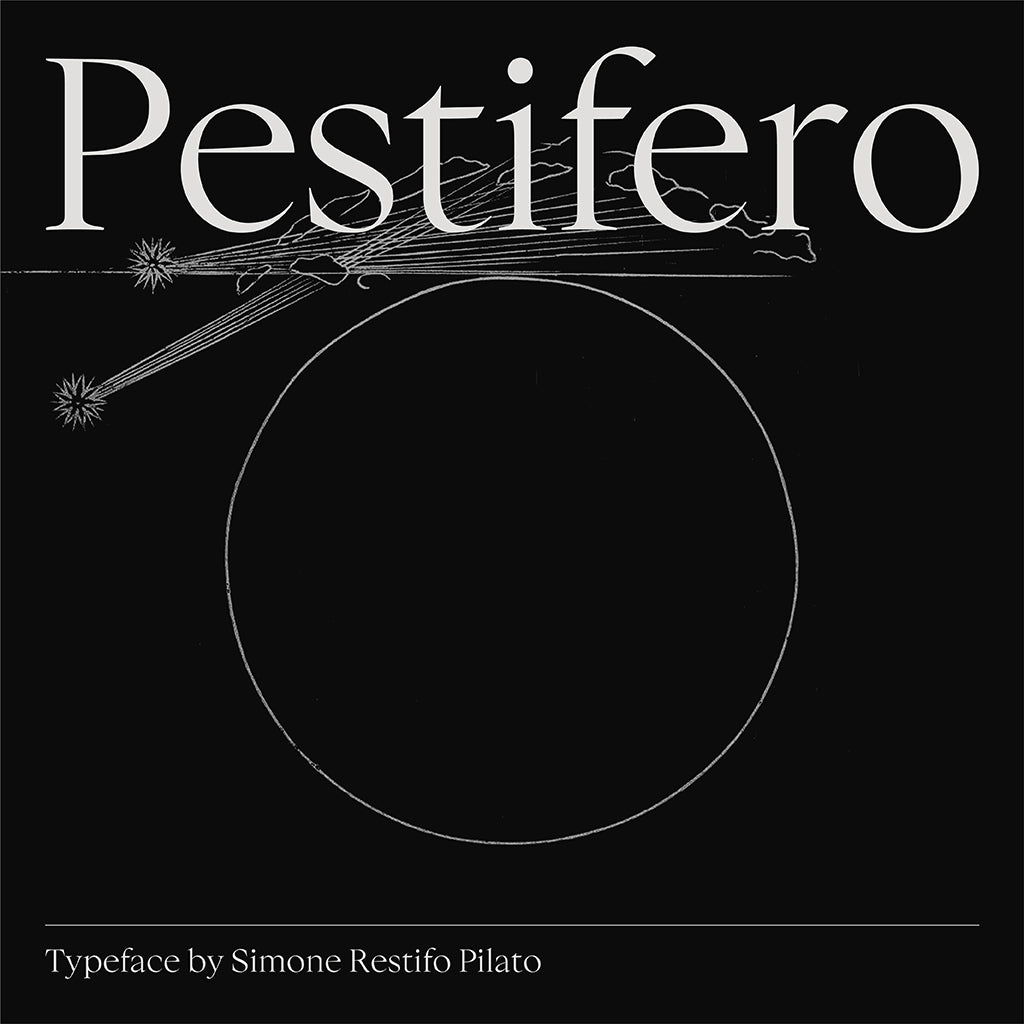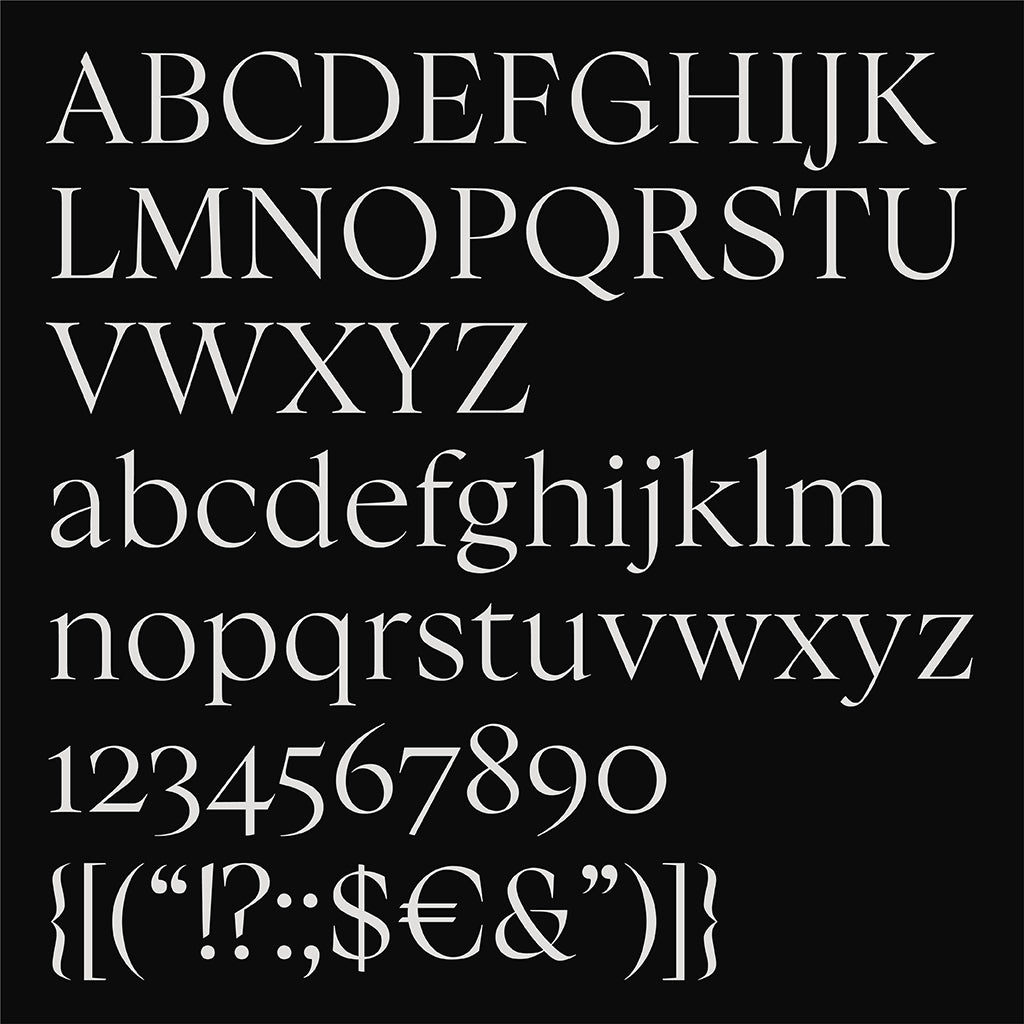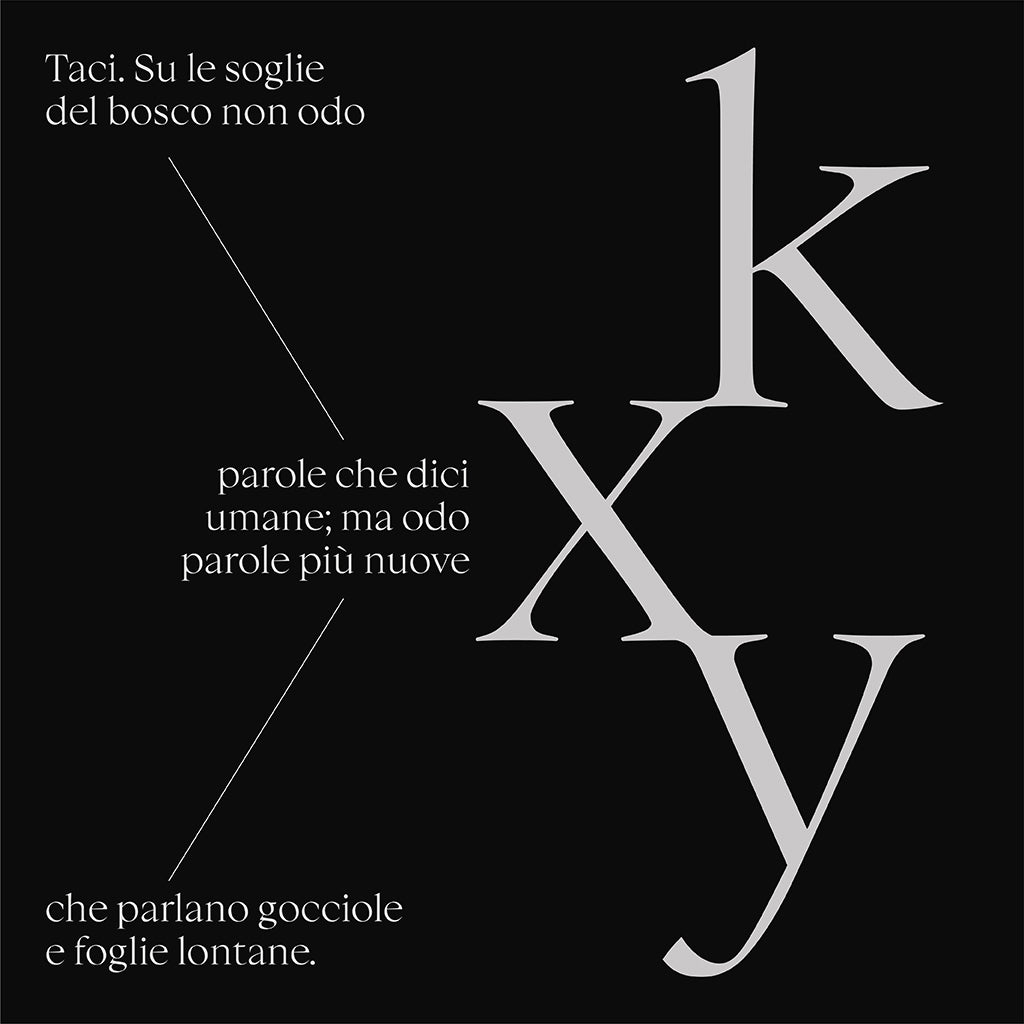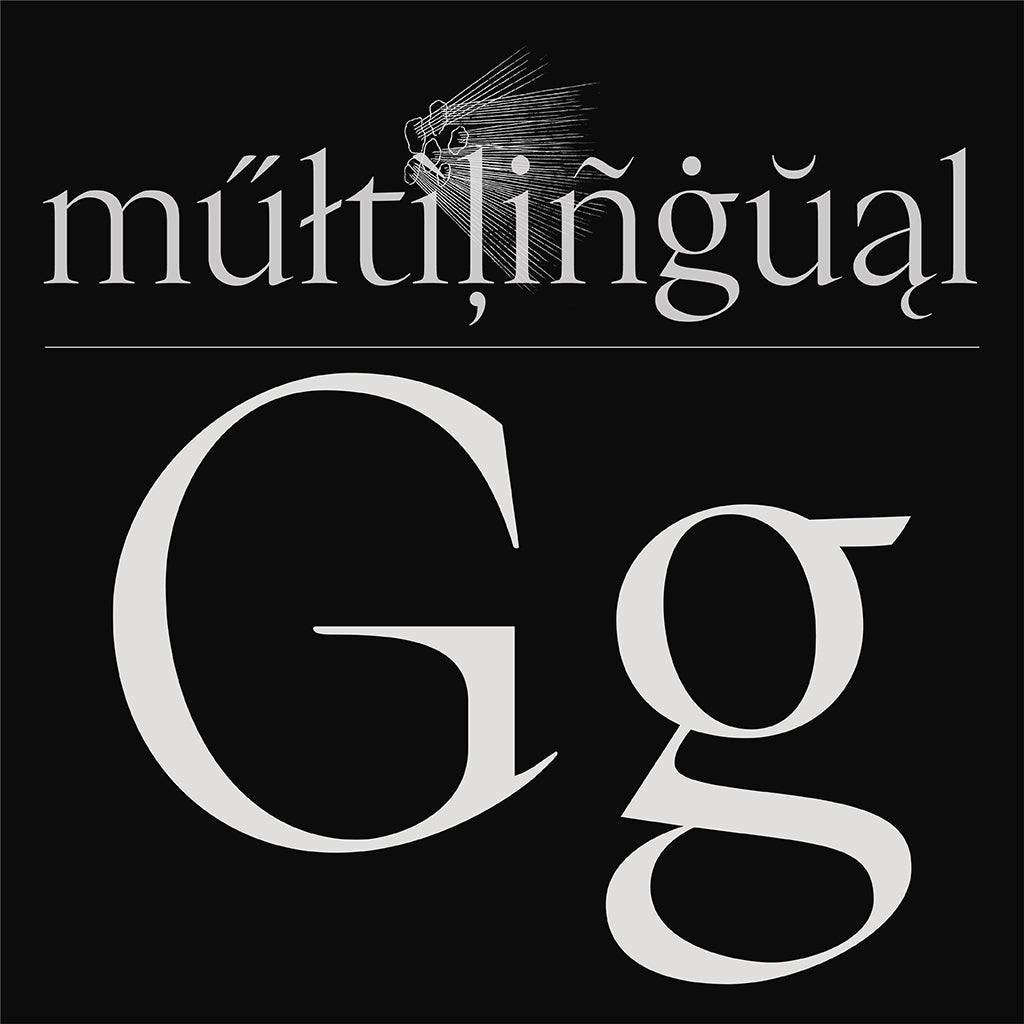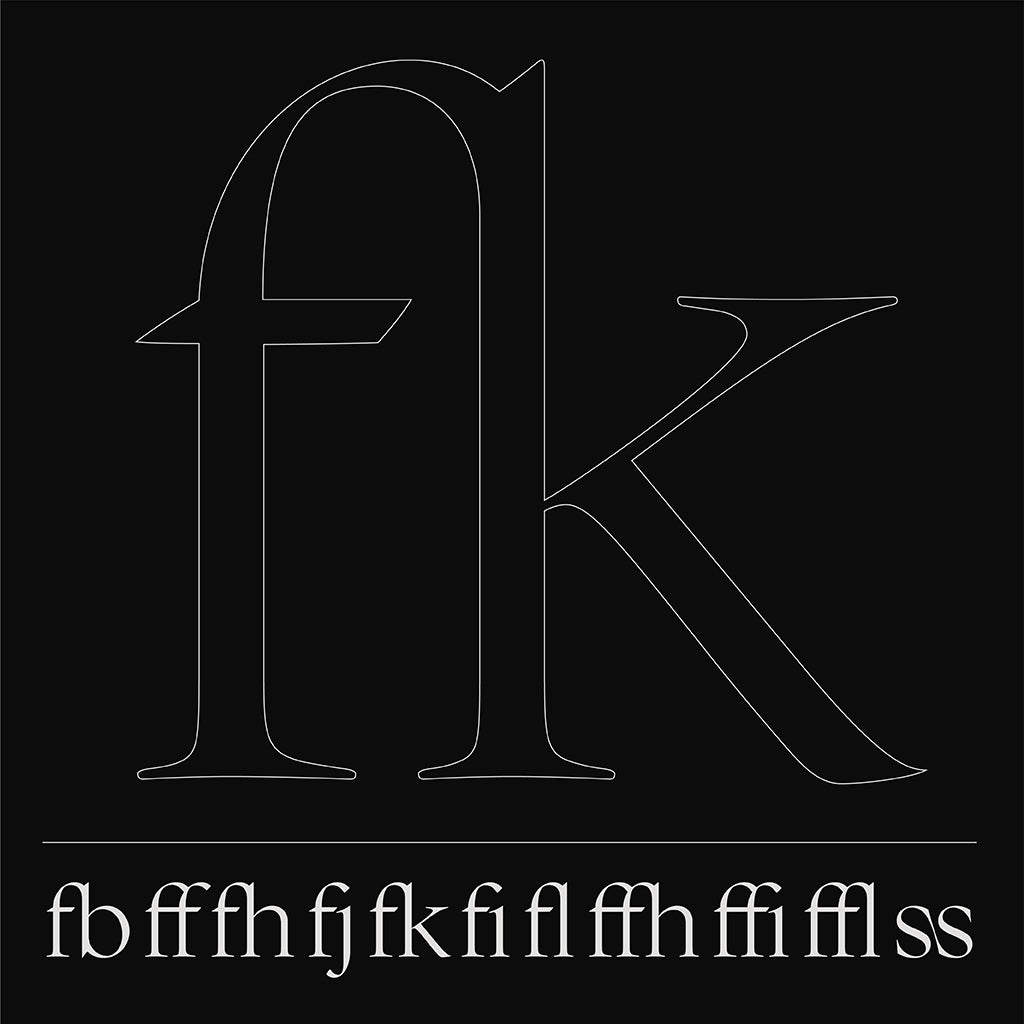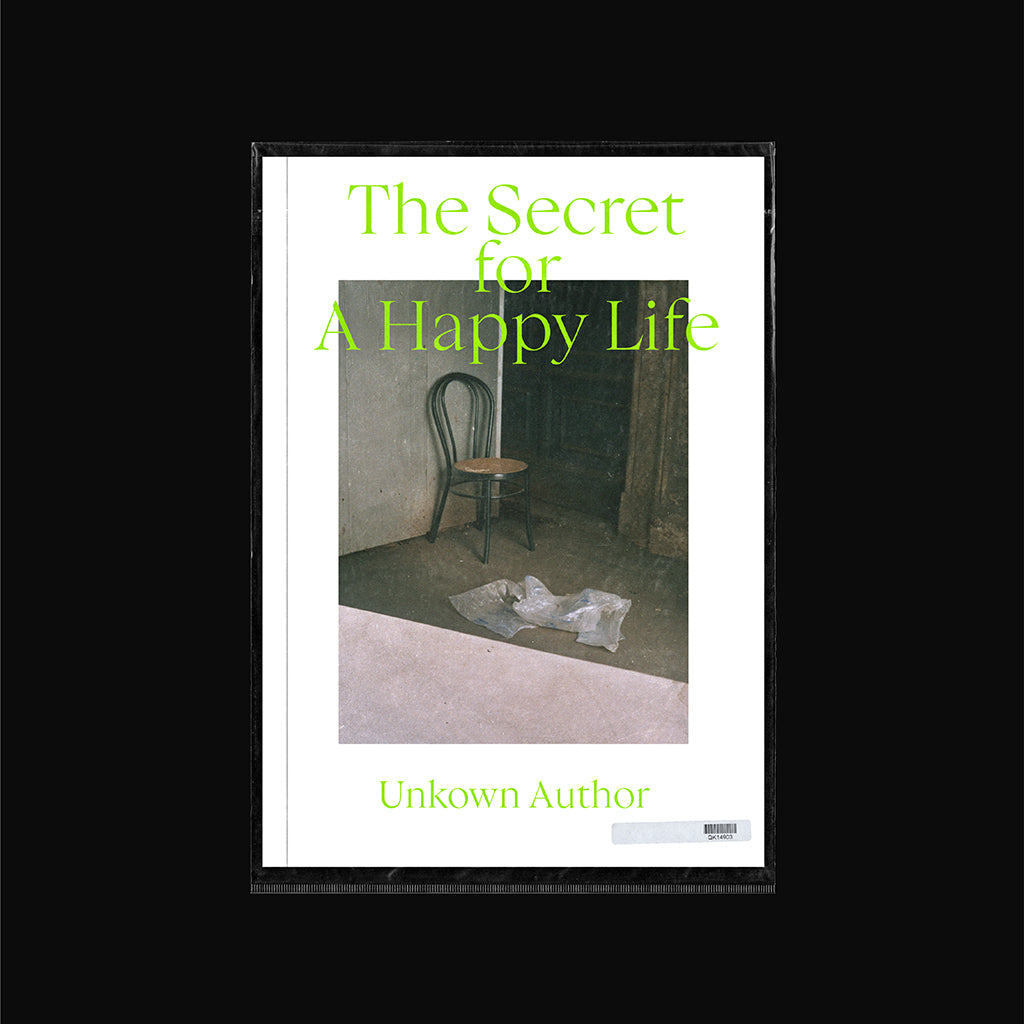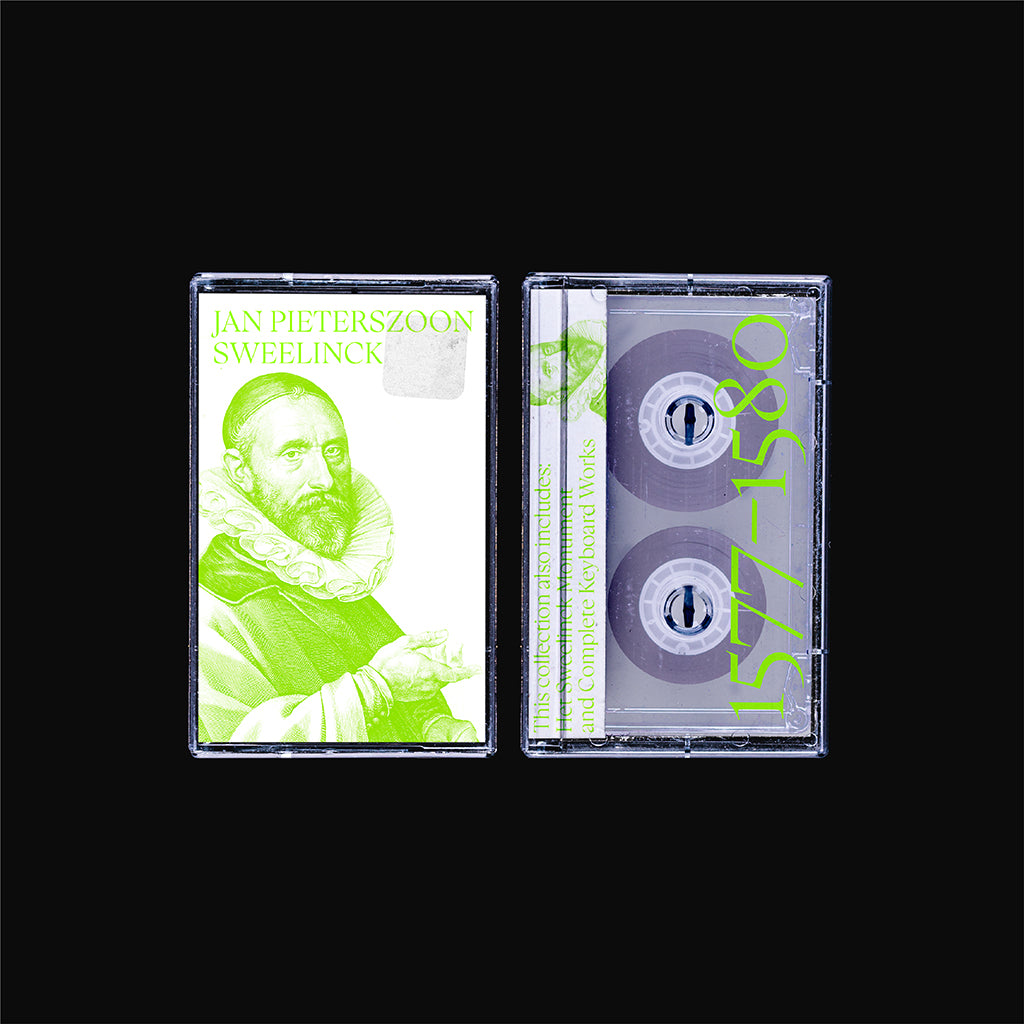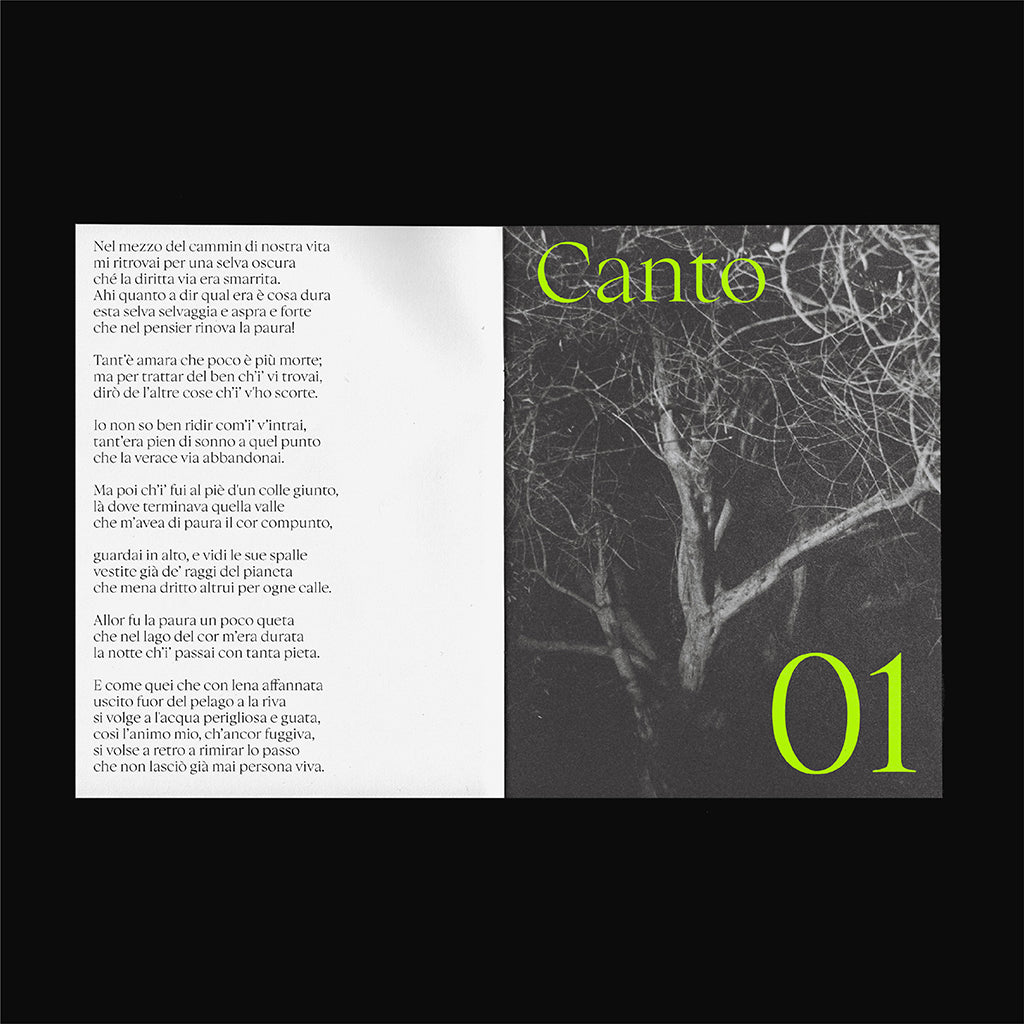
Pestifero (Free)
Simone Restifo Pilato
Pestifero is a contemporary humanist serif typeface that embodies a nostalgic quest for beauty in a post-pandemic world, bridging eras marred by similar afflictions. Inspired by the 1576 book 'Informatione del pestifero et contagioso morbo' and Renaissance works of various masters, Pestifero transcends historical accuracy to offer a modern interpretation. It freely embraces classical typographical aesthetics, blending timeless elegance with a contemporary twist.